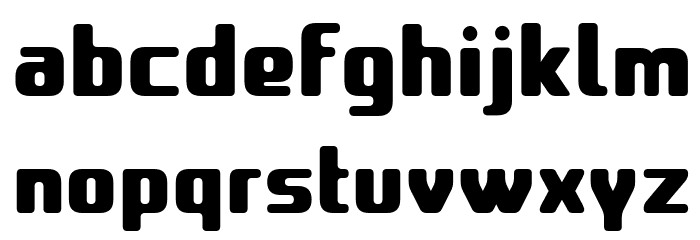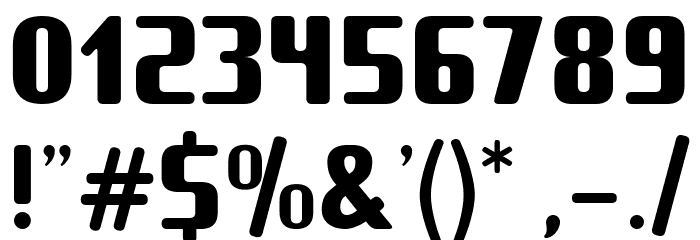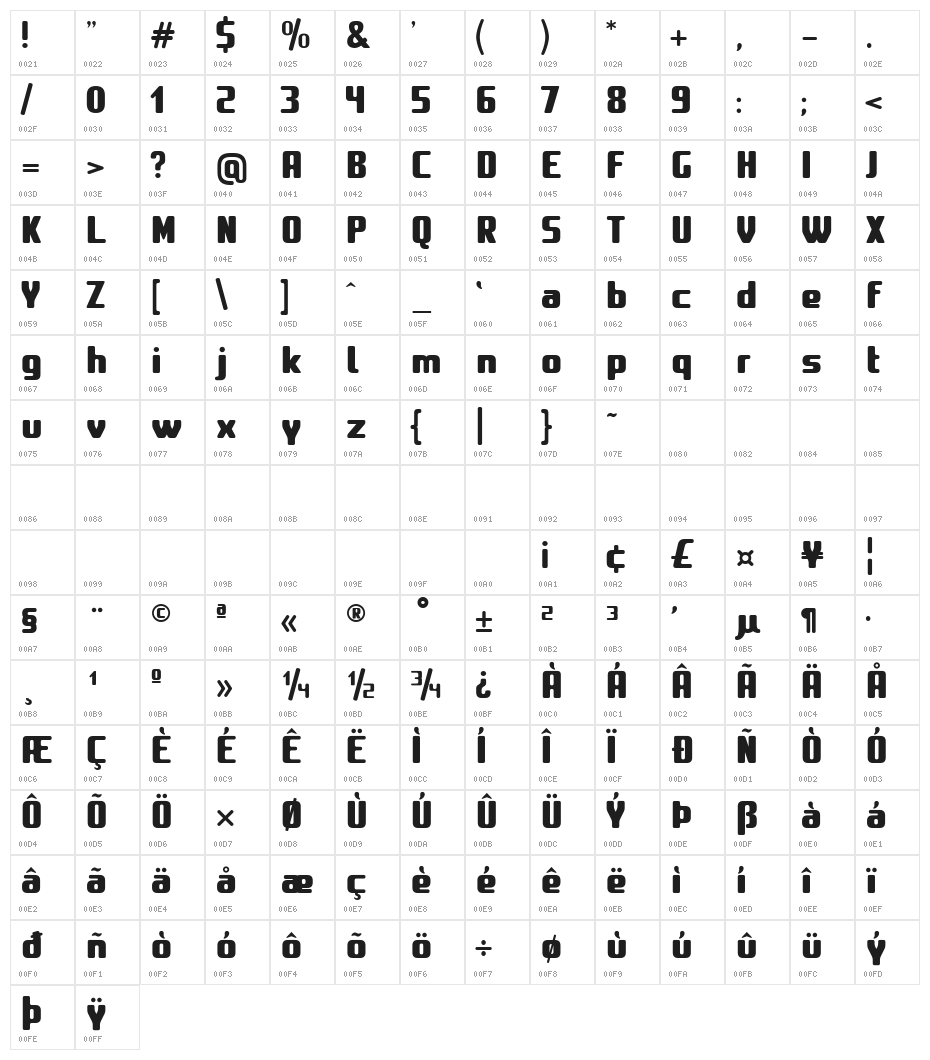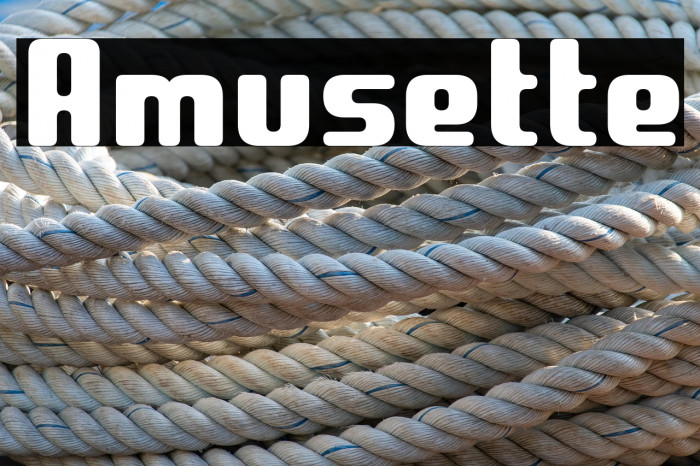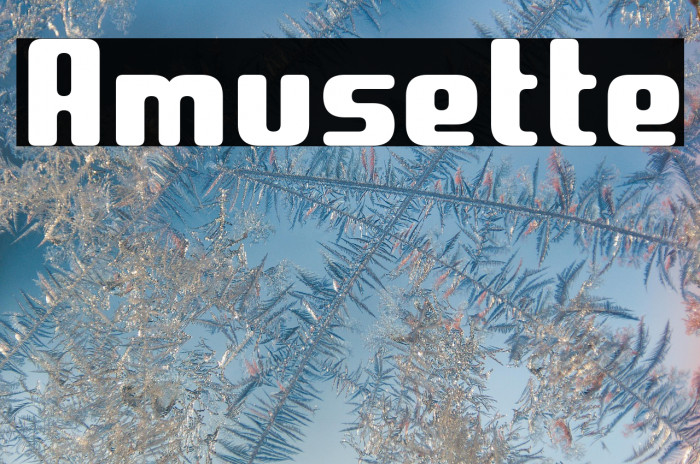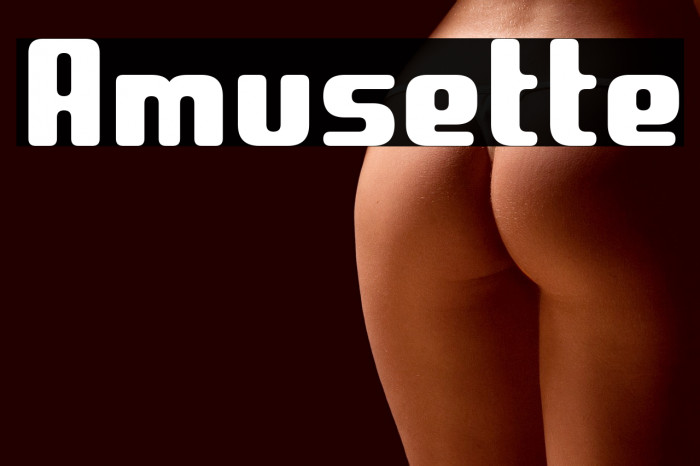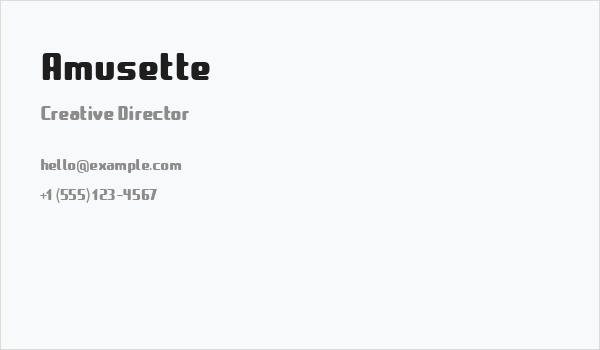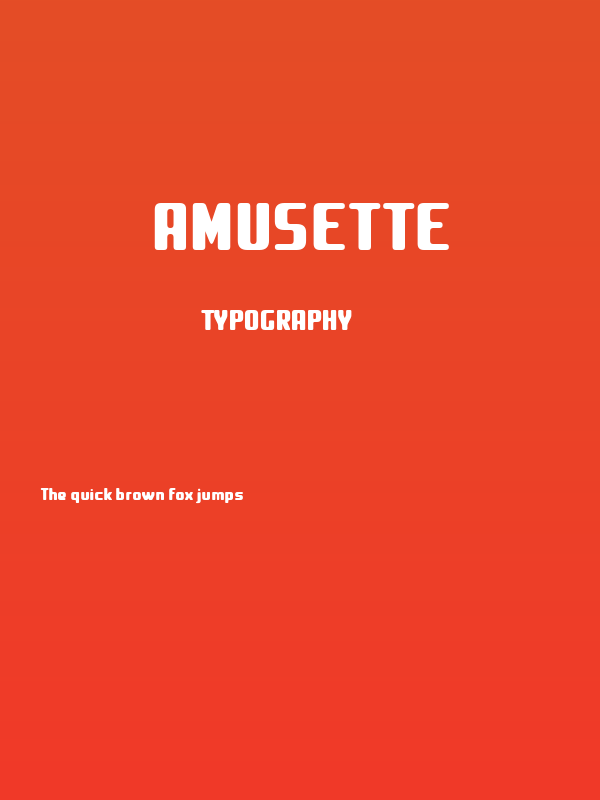
Amusette Font
This font features a playful and bold style, characterized by rounded edges and a uniform stroke width. The uppercase and lowercase letters maintain a consistent height, creating a cohesive look. The numbers and special characters are designed to match the overall aesthetic, with a slight emphasis on curves and smooth transitions. The font's design is approachable and friendly, making it suitable for a variety of creative applications. Its boldness ensures readability while the rounded forms add a touch of whimsy.
A playful, bold font with rounded edges and uniform stroke width.
- Proposed Projects: Ideal for children's books, playful branding, posters, and creative digital content.
- Overall Style: Playful